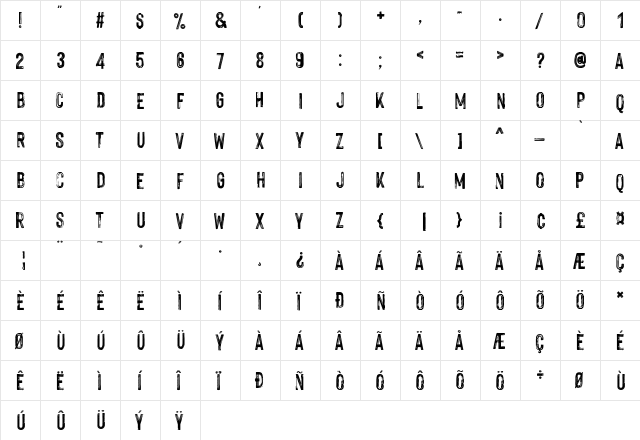
Hackney Vector
| Foundry | Ellen Luff |
| Designer | Ellen Luff |
Design Context for Hackney Typeface
Hackney takes a measured approach to typography — its balanced proportions and neutral character make it a reliable workhorse for both digital and print work.